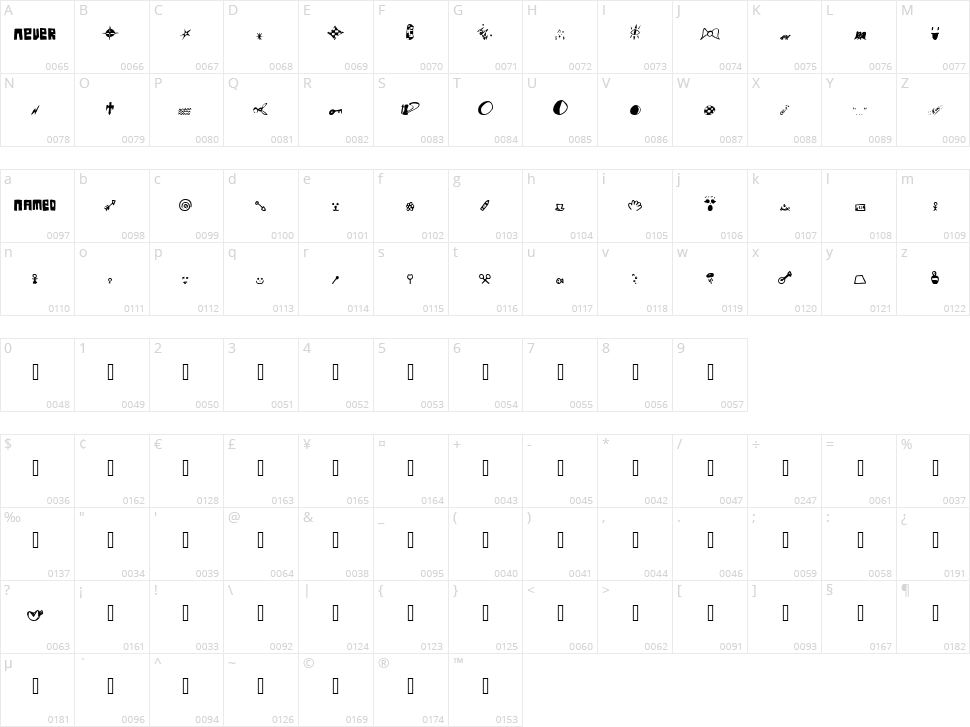
FSO Never Named
| "never named" [ # 08 ] |
| created on 06.15.99 |
| using . . well, i know my scanner was involved. . |
| |
| this is what happens when we make a dingbat font. |
| |
| k'vn got to do the upper case, while fielle was |
| left to do the lower case. i did both of the a's |
| which i later turned into their own font. |
| this was made by jeff george and/or inpheaux. i |
| say this not because i'm schizophrenic, but because |
| saying some shite like jeff "inpheaux" george just |
| doesnt seem right, and i've just gotten so lax about|
| my handle. |
Designer Name: Jeff George